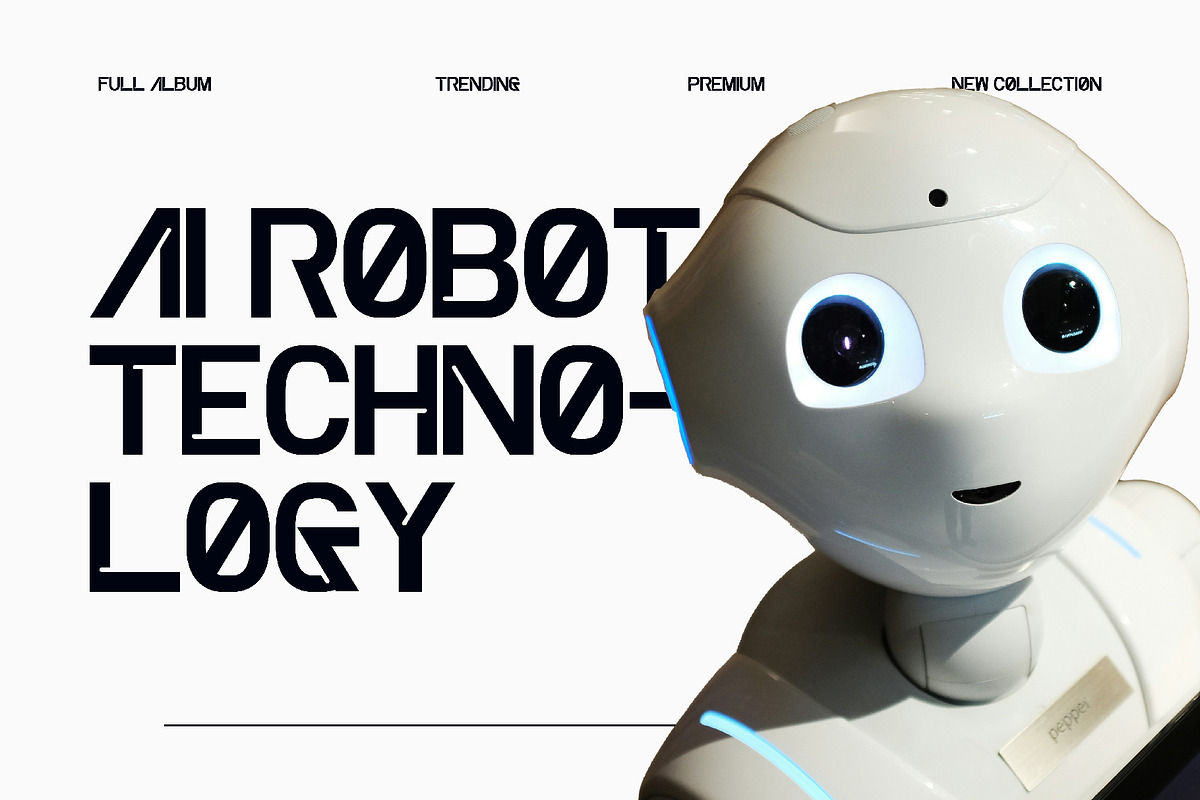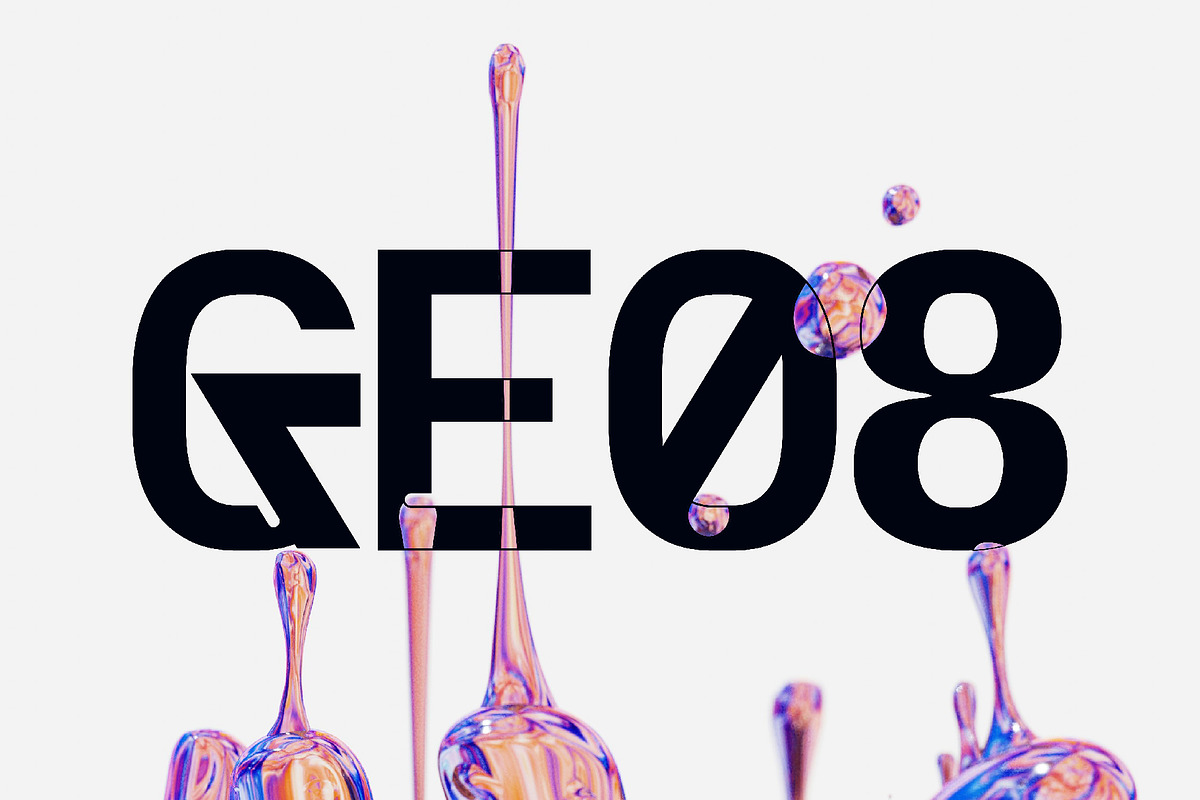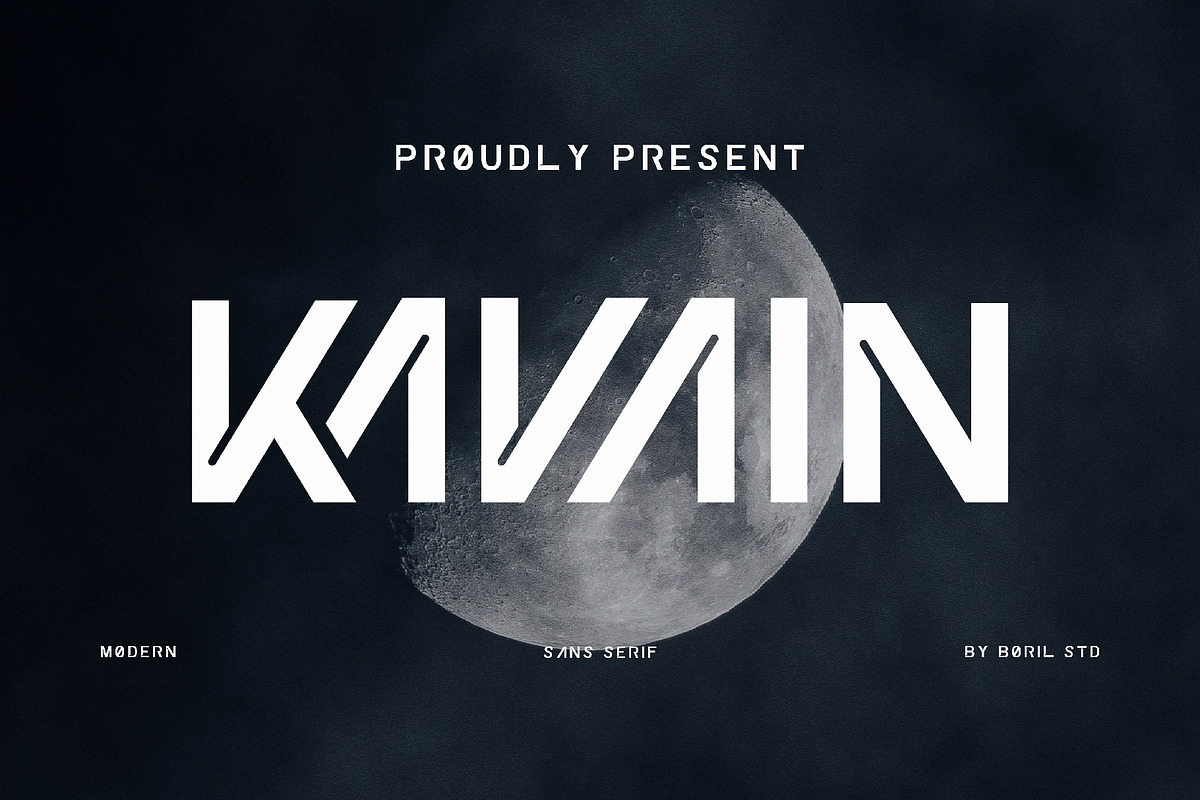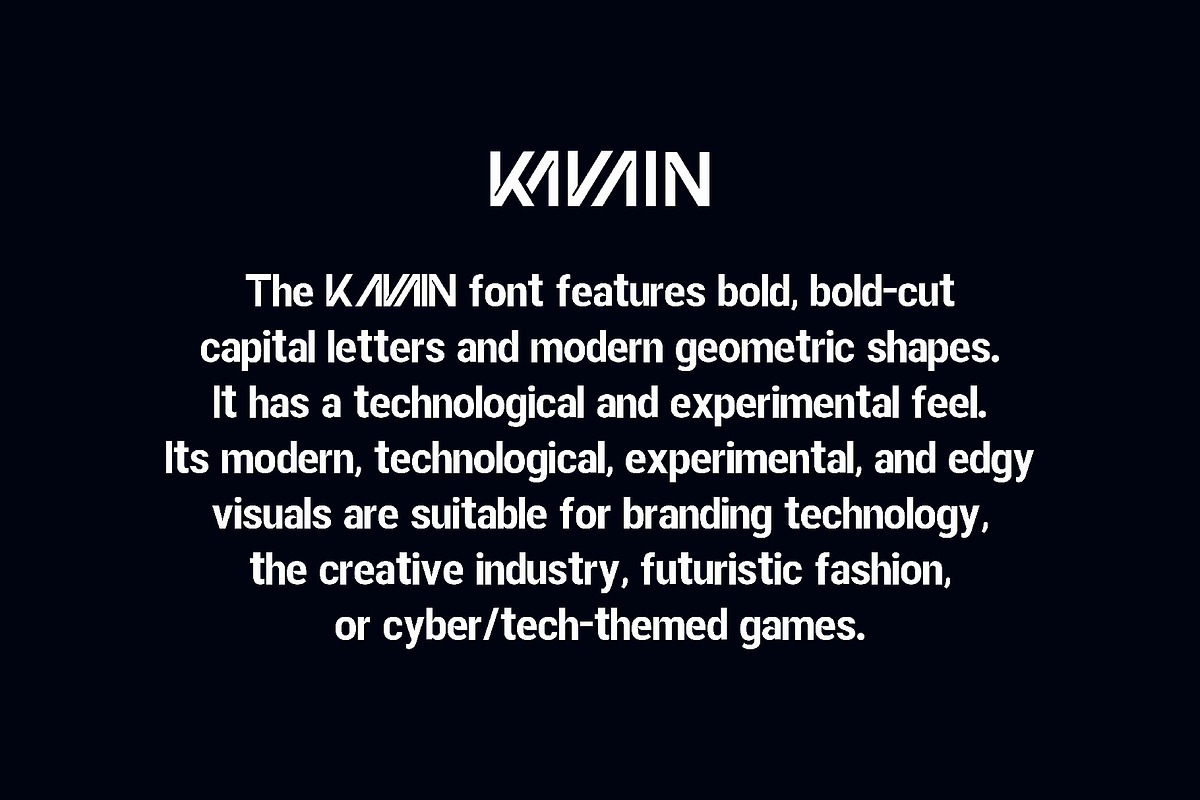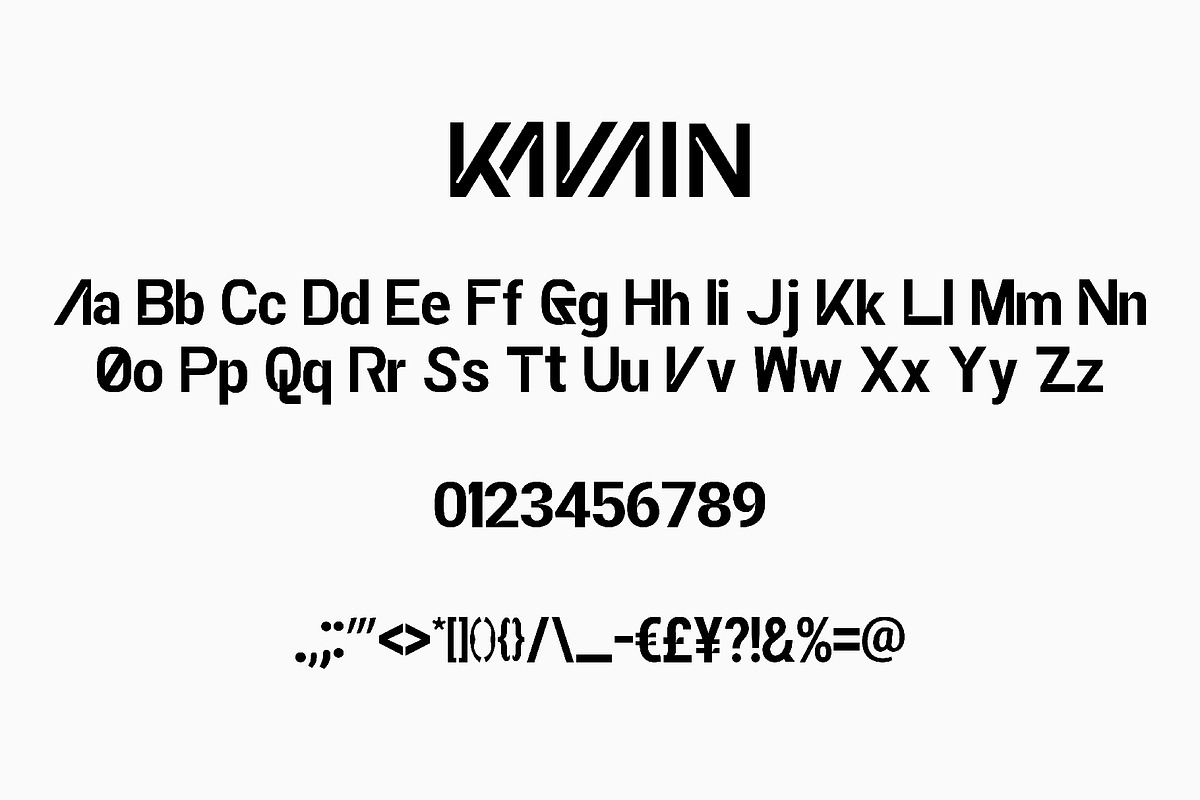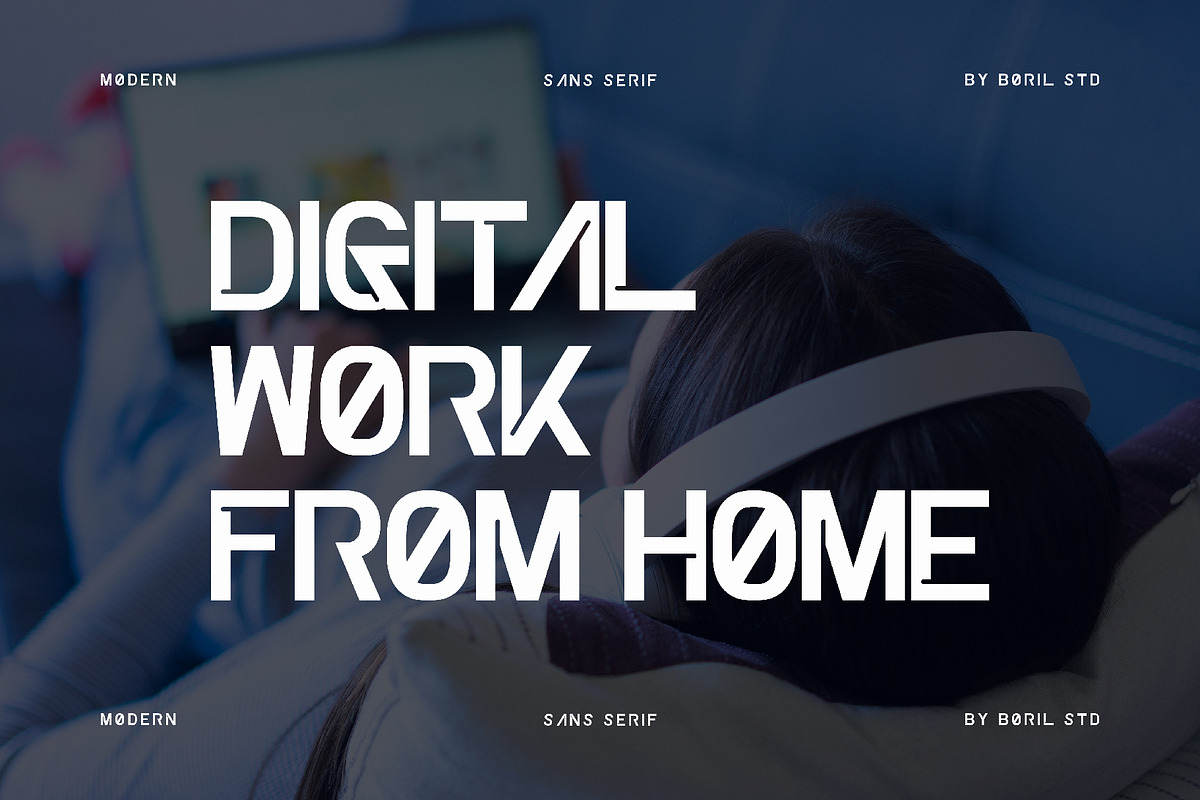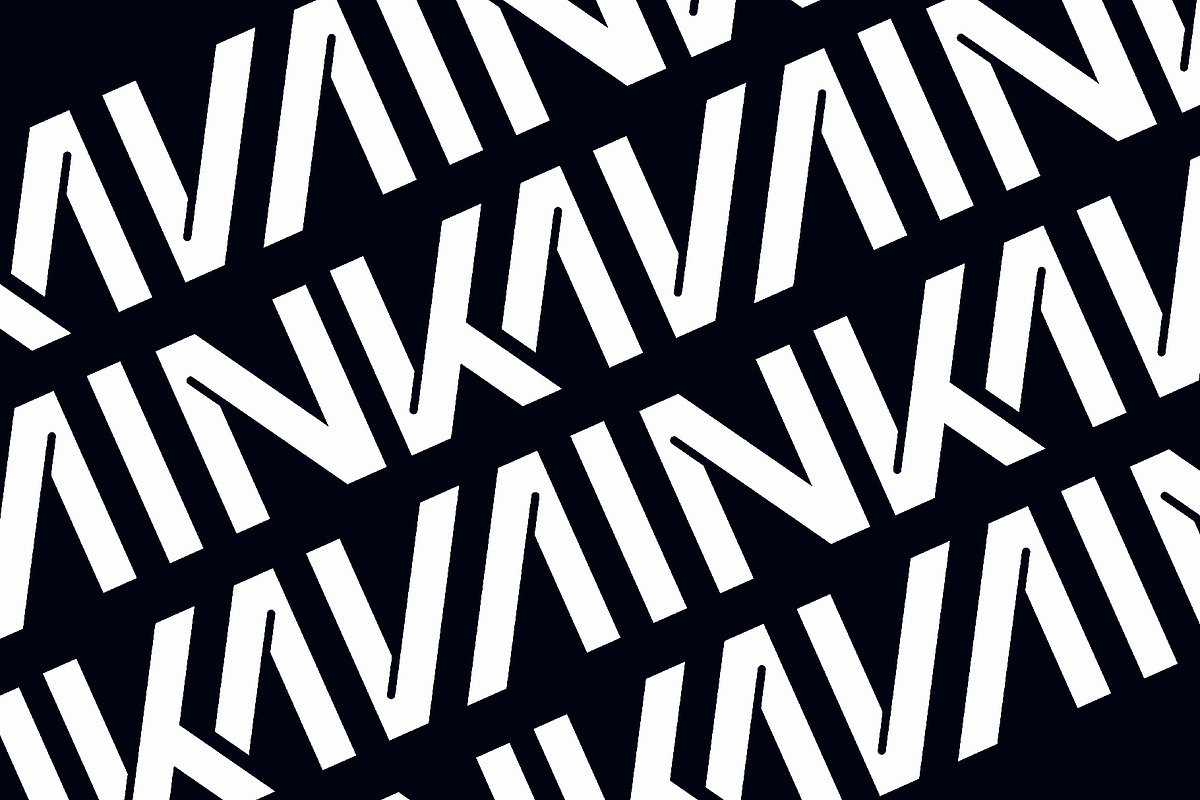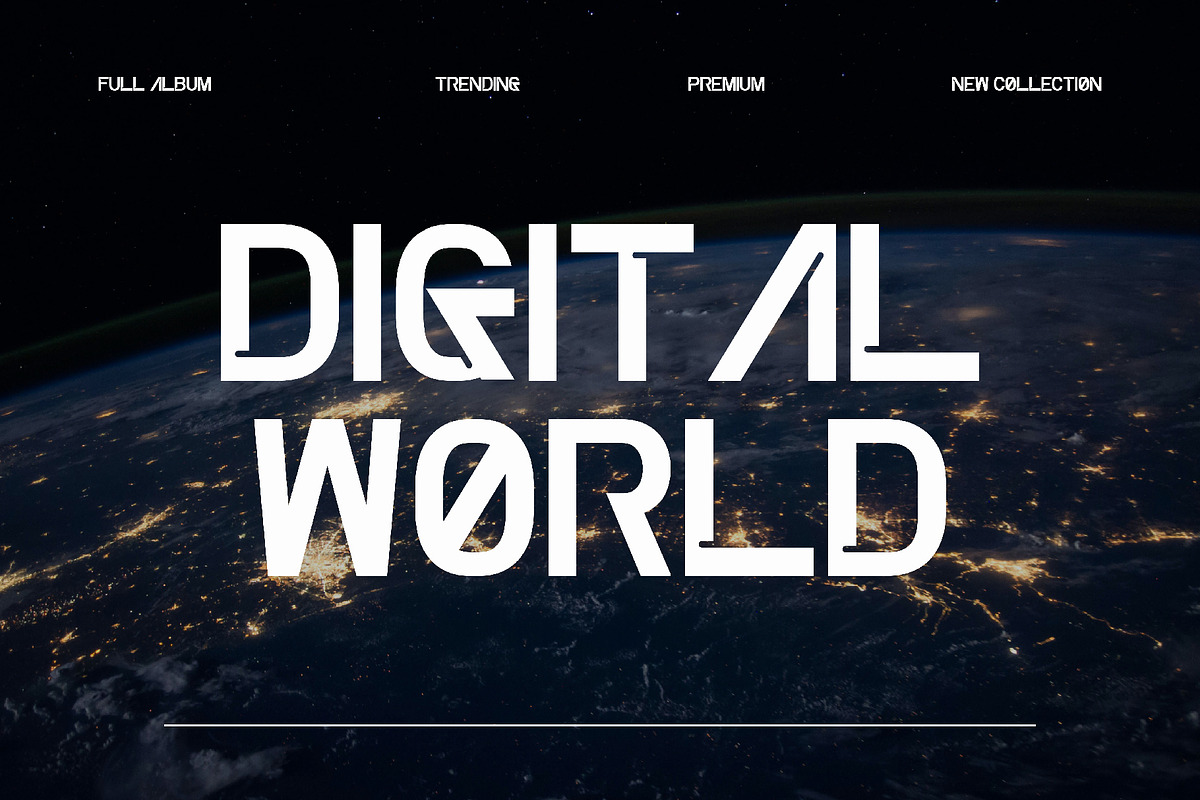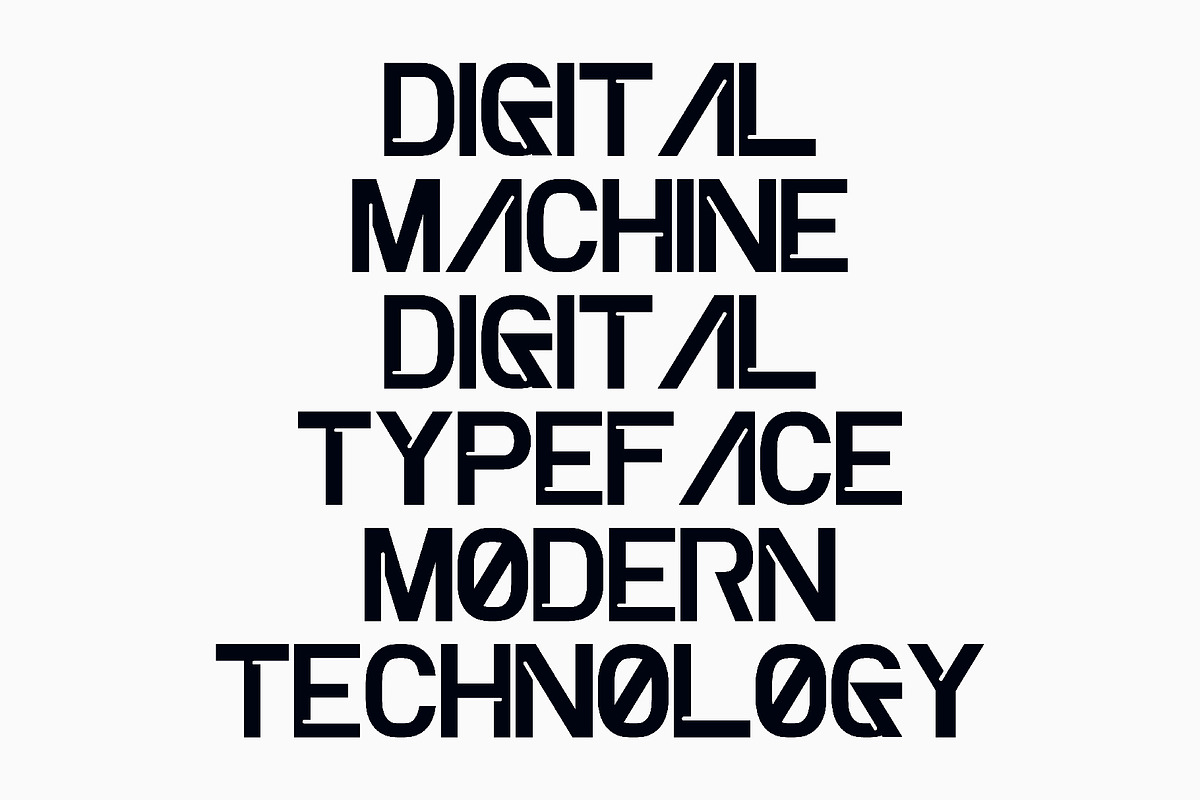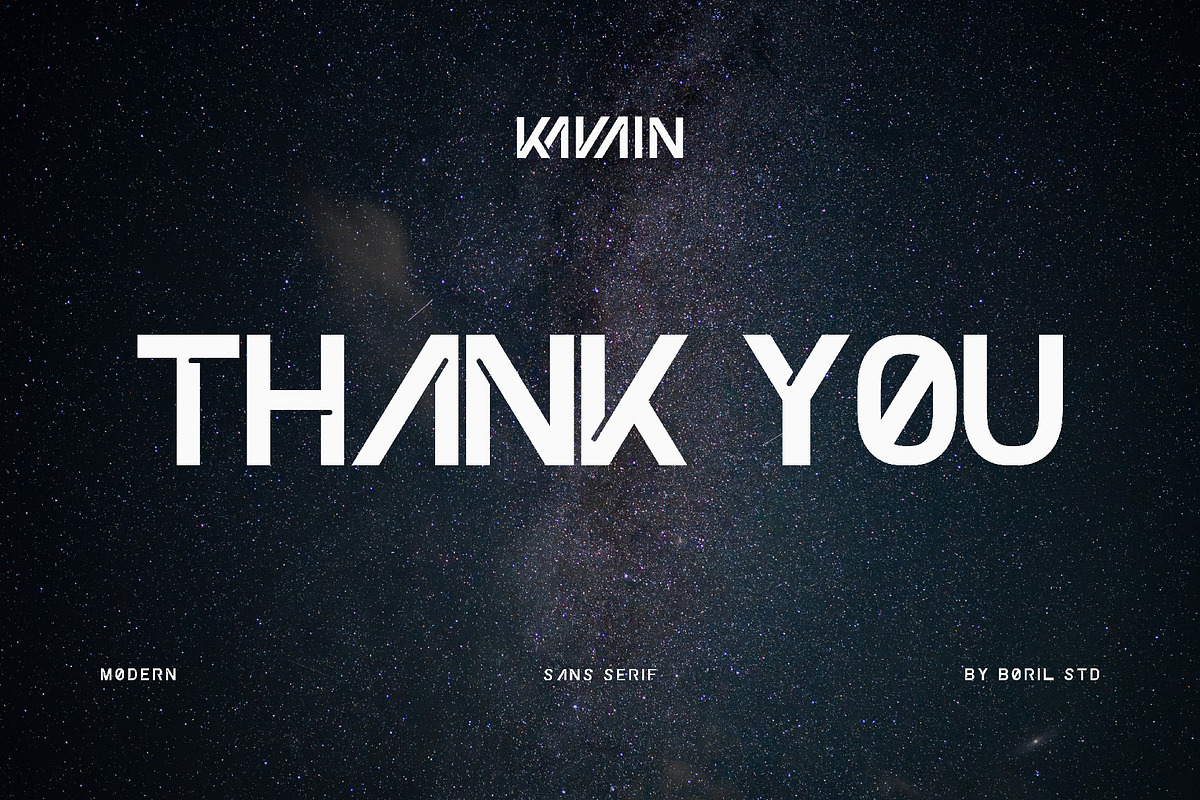
KAVAIN - Sans Serif Technology
The KAVAIN font features bold, bold-cut capital letters and modern geometric shapes. It has a technological and experimental feel. Its modern, technological, experimental, and edgy visuals are suitable for branding technology, the creative industry, futuristic fashion, or cyber/tech-themed games.